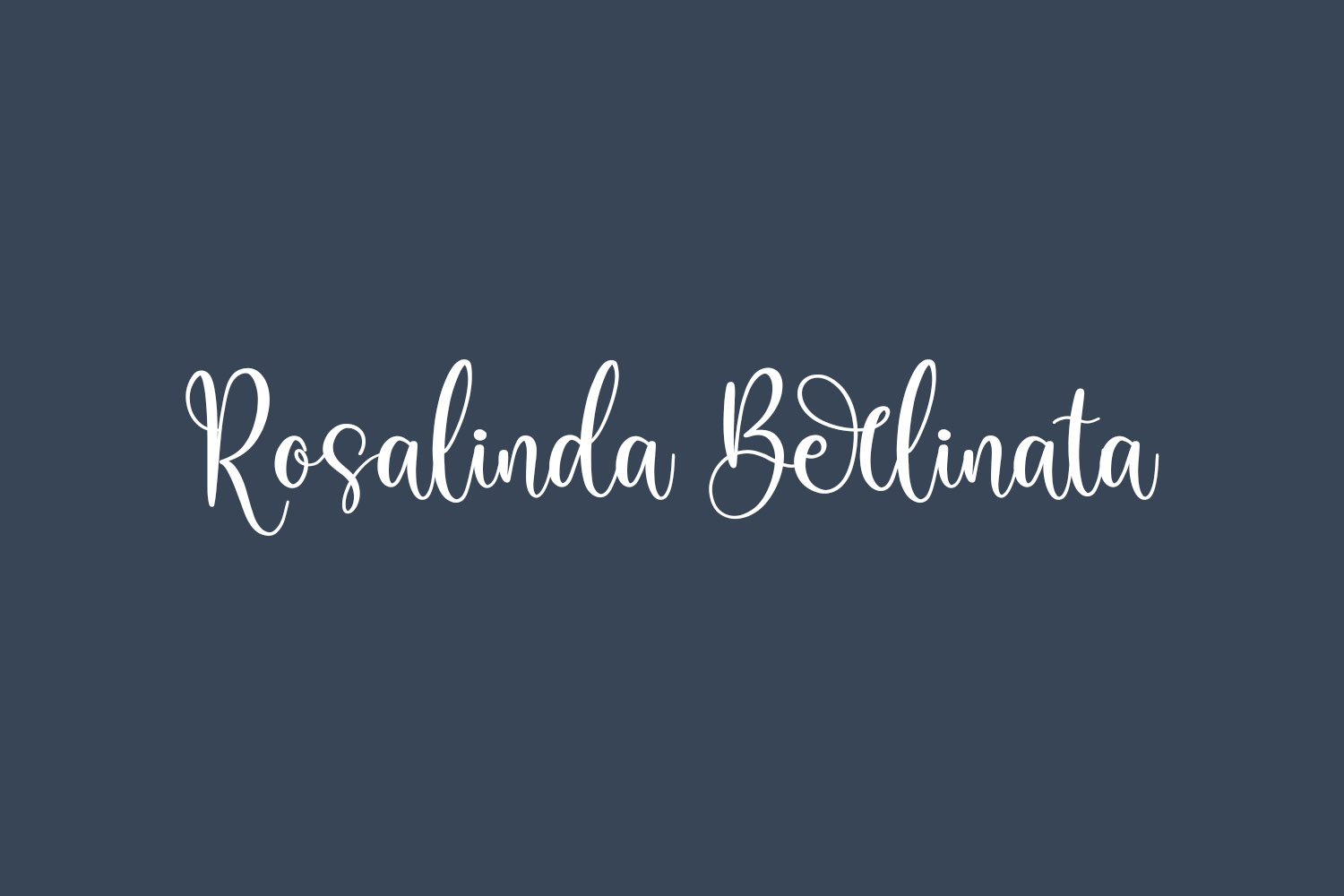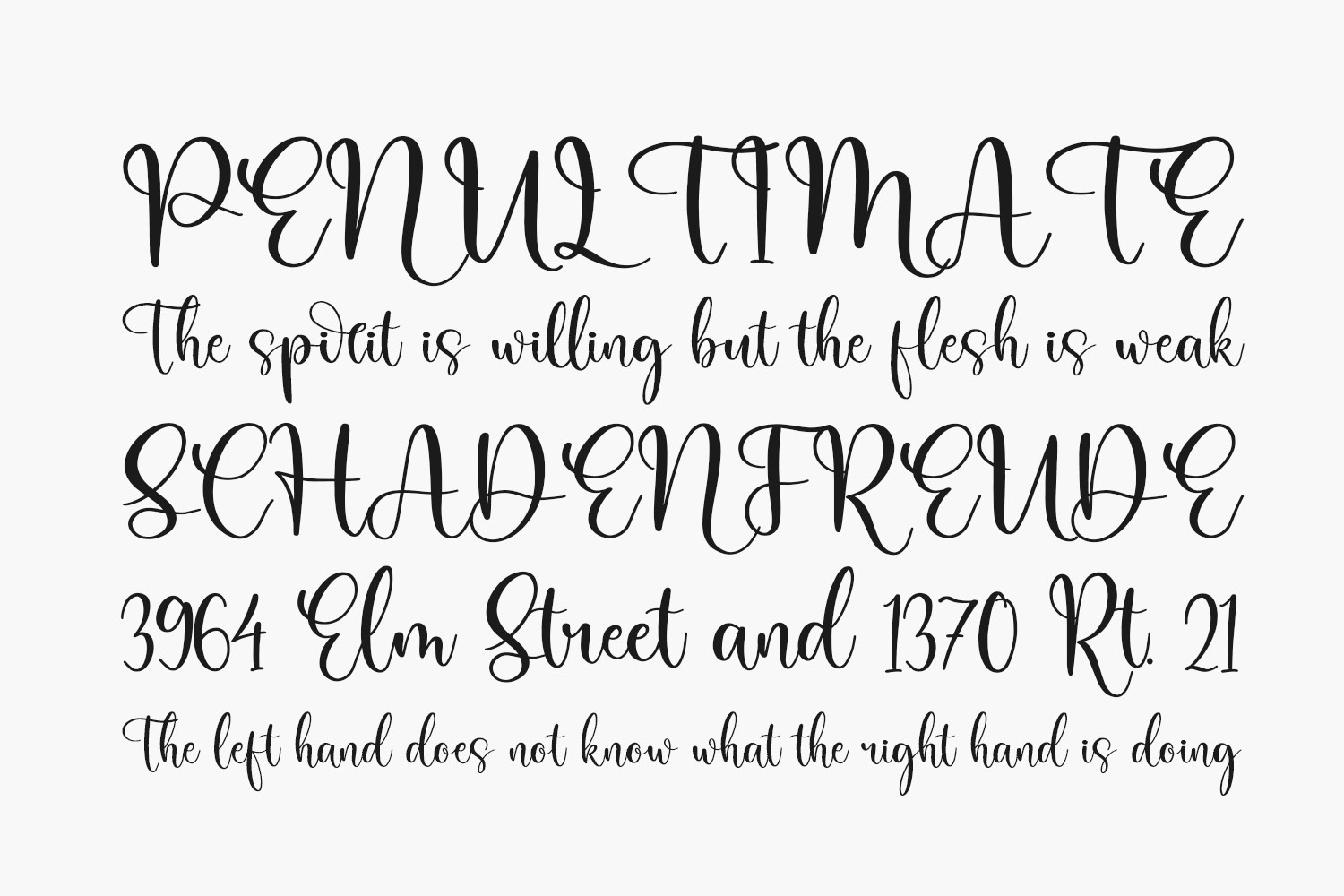
Rosalinda Berlinata Free Font Family is a chic, refined script font that emanates sophistication and elegance. Its stylish alternates and ligatures make this font the perfect match for any project. Rosalinda Berlinata Free Font Family was designed by Perspectype Studio and is free for personal use only. Please purchase the full version for commercial use.